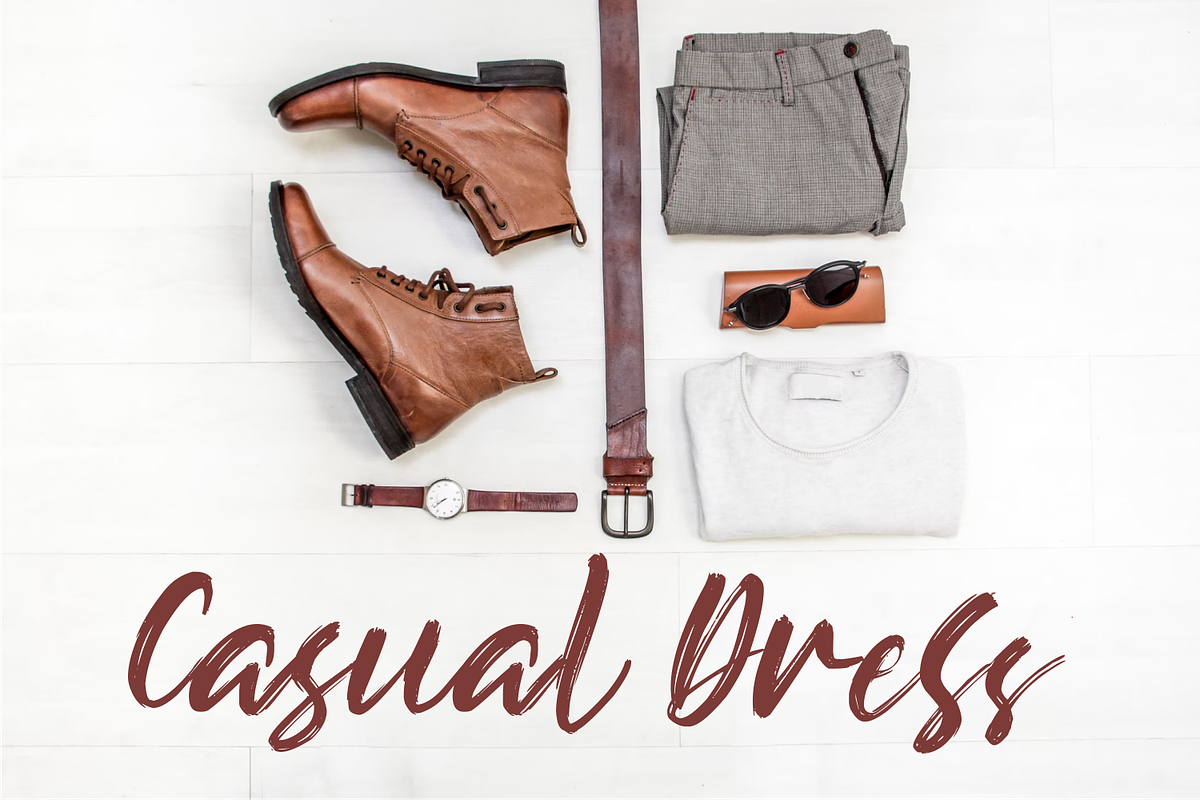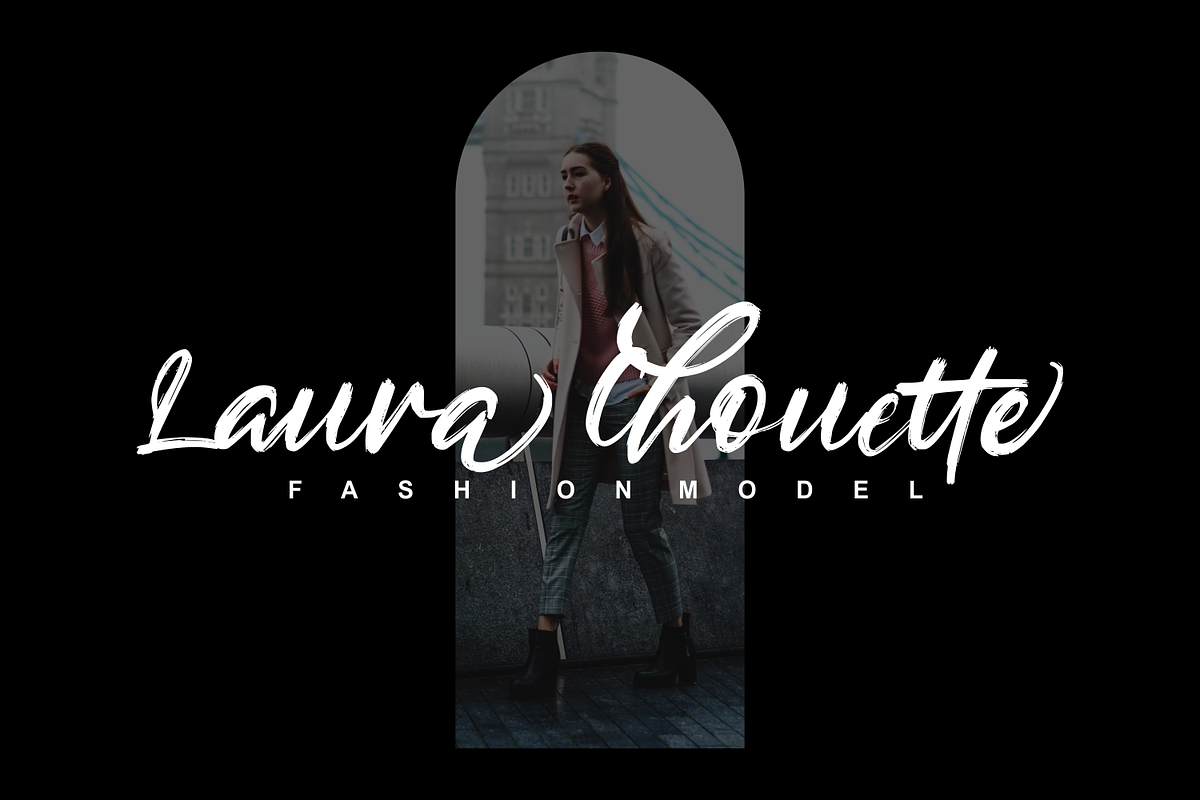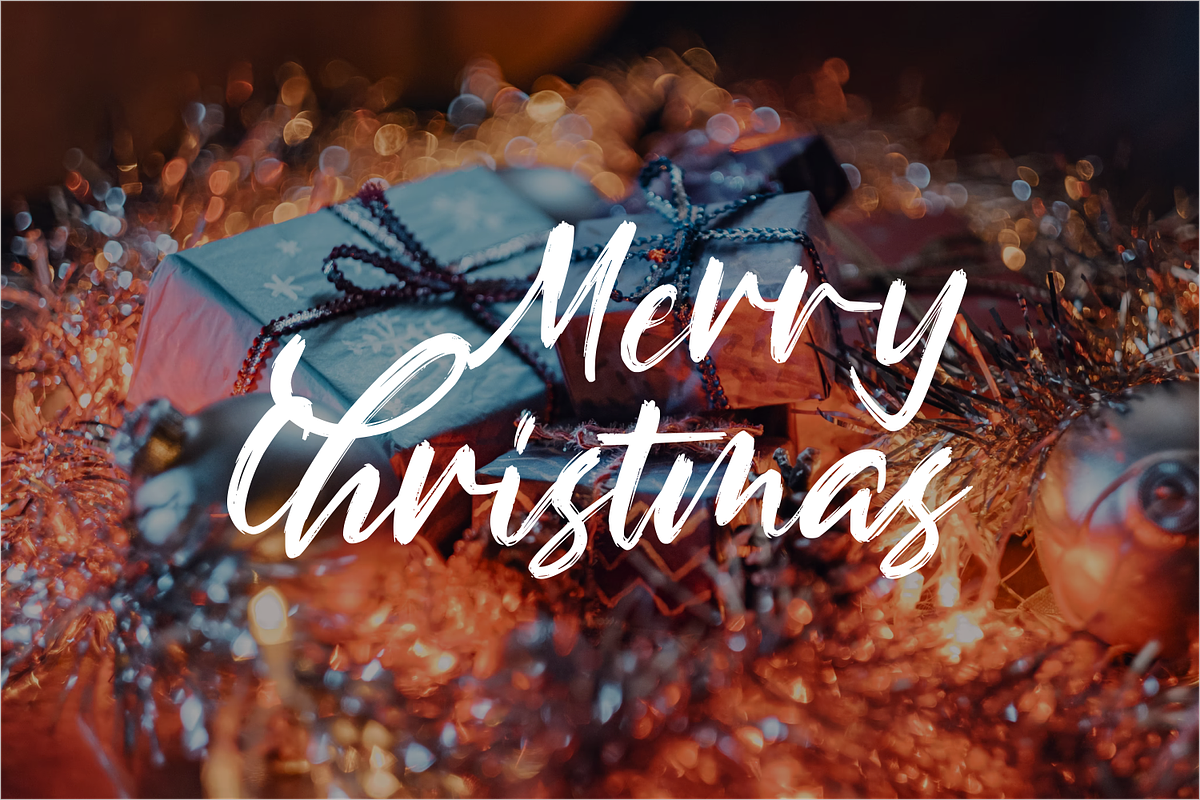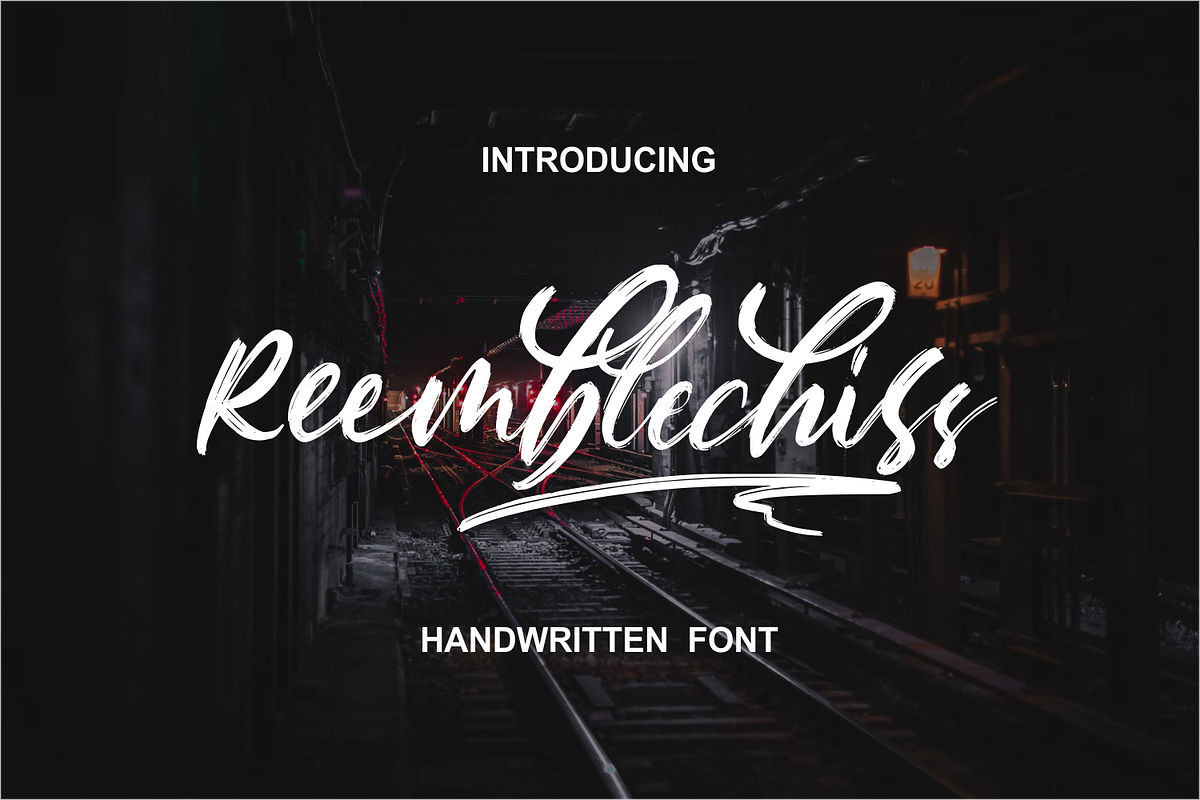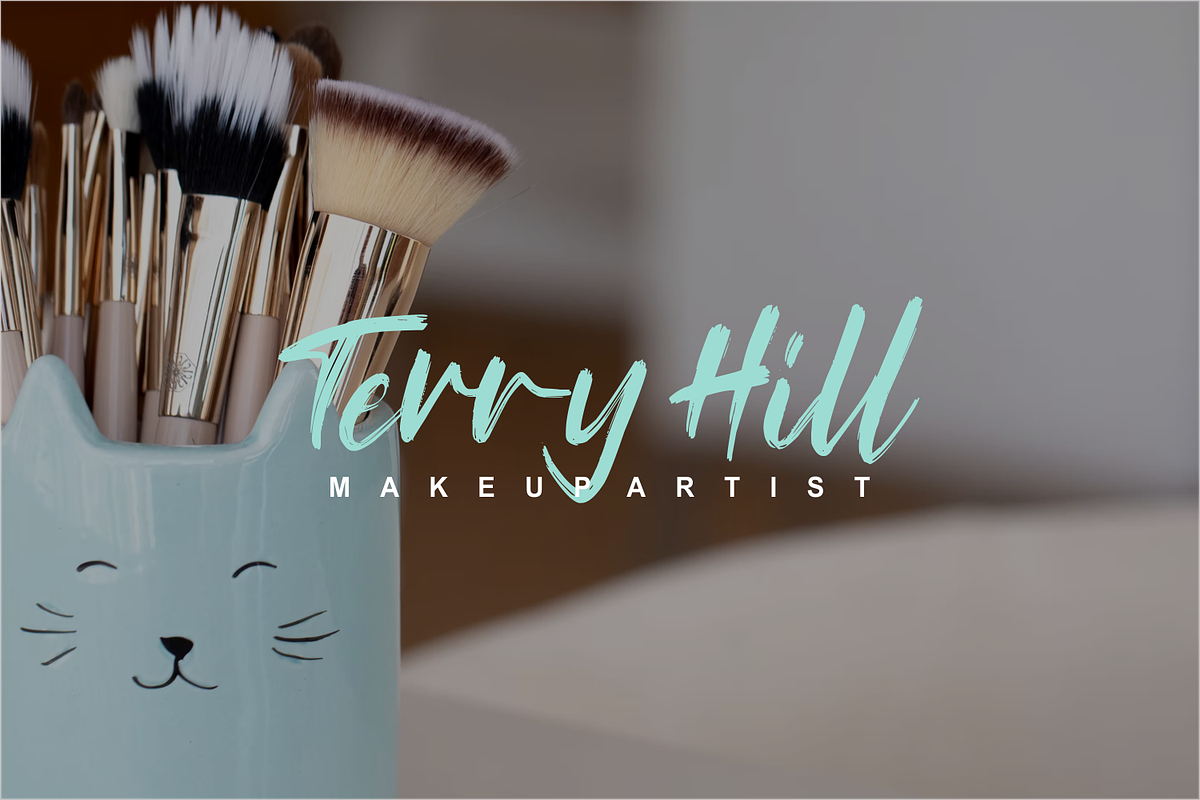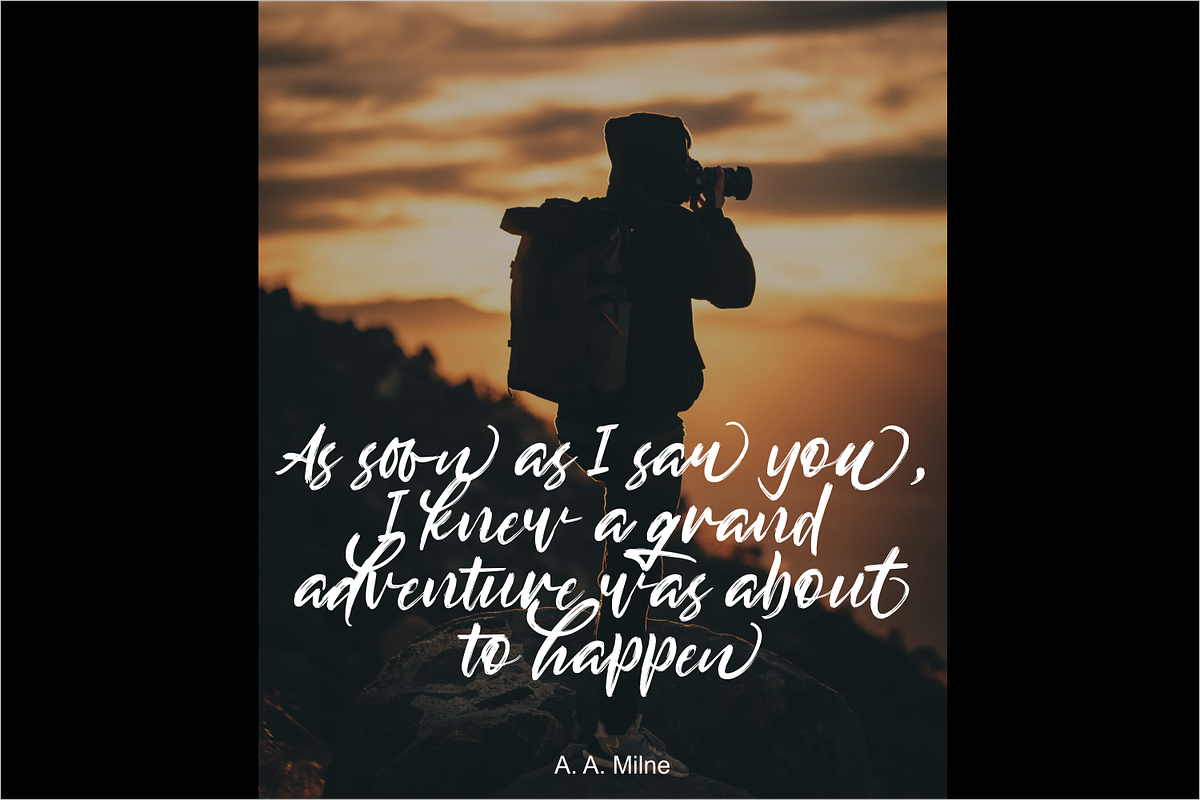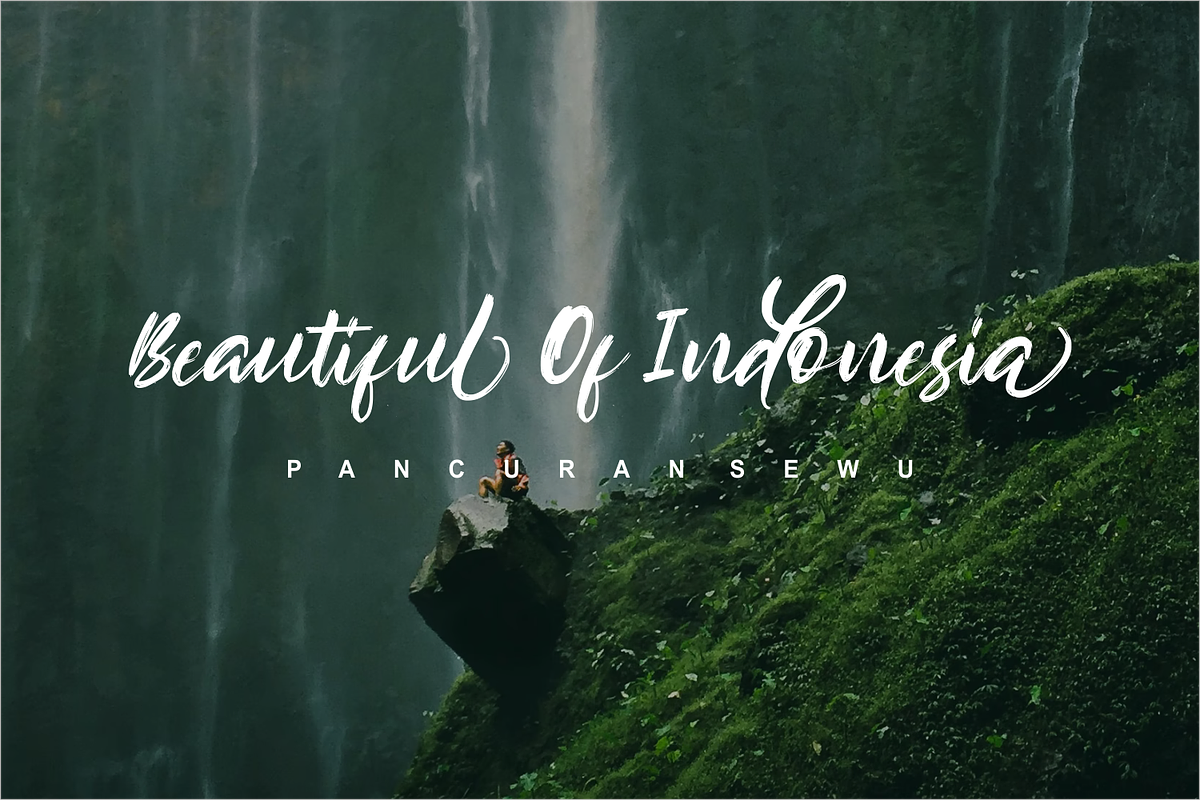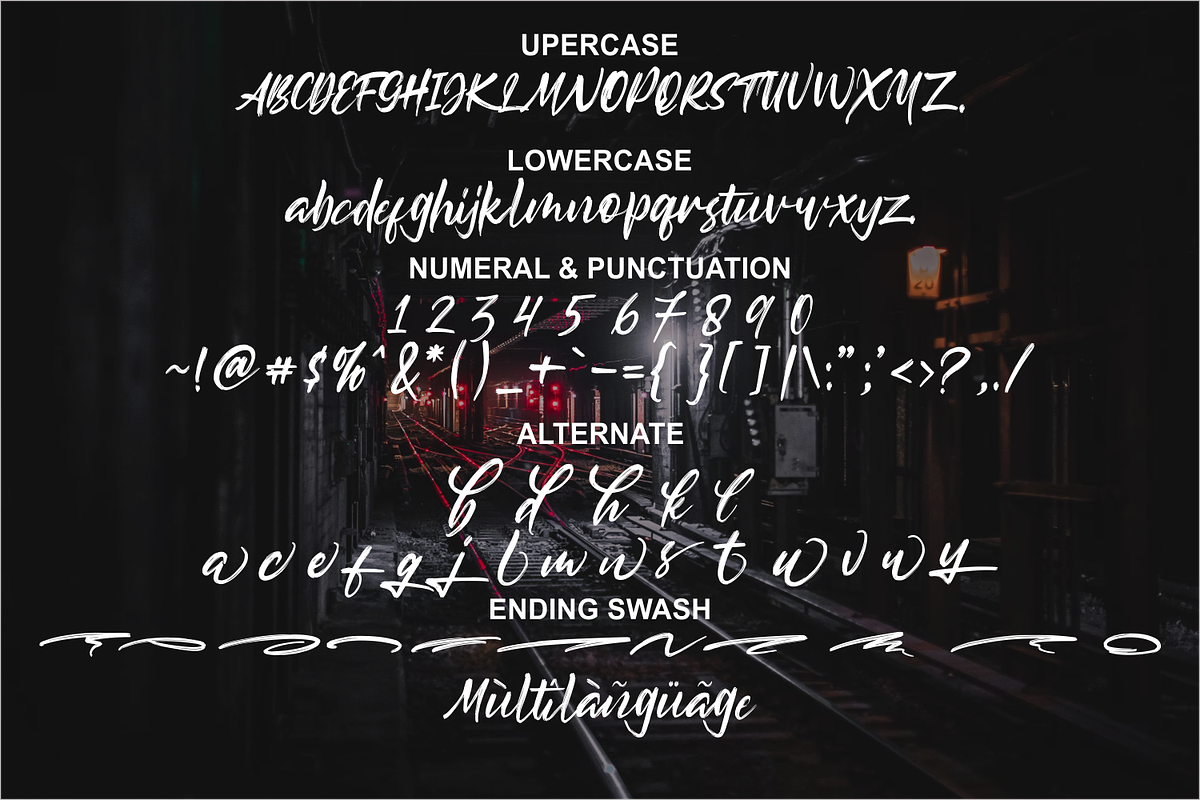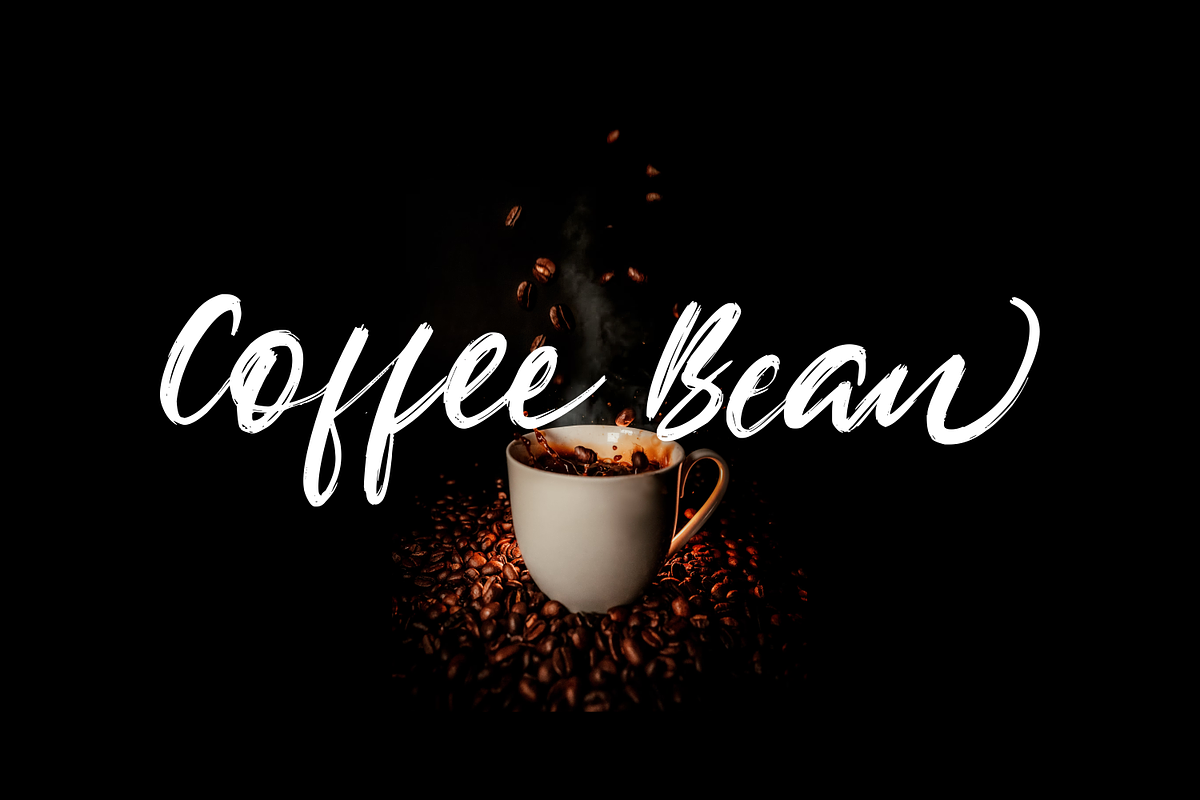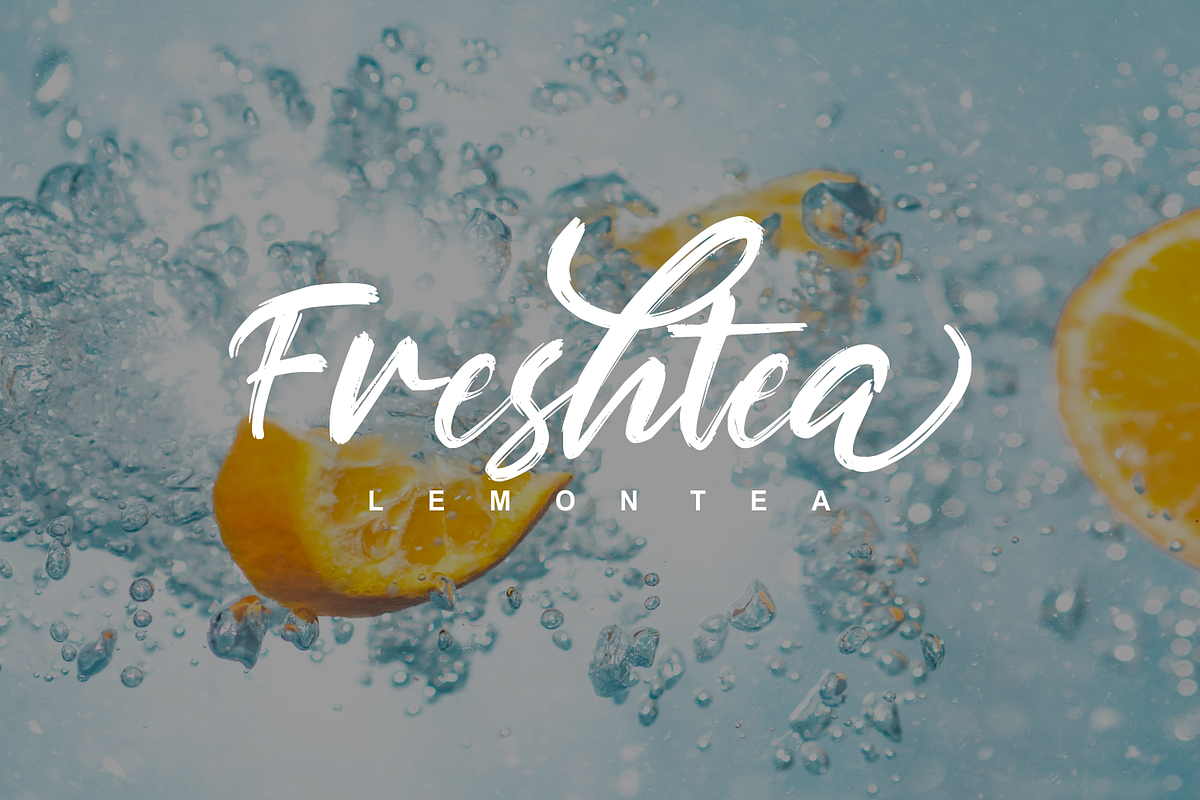
Reemblechiss
introduces the Reemblechiss a Handwriting font with texture characters. Reemblechiss is handwritten directly on paper with a coarse-type brush, for a strong and consistent texture. Reemblechiss has alternative lowercase letters as well as several swashes to support the writing style. Reemblechiss can also be used for various projects such as invitations, gift greetings, quotes, or long scripts, beauty salons, social media, logos, weddings, branding, graphic design with additional strokes. and can be combined with various types of sans and serif fonts to enhance the project you want to work on. Files include: Reemblechiss.ttf Reemblechiss.otf Reemblechiss.woff